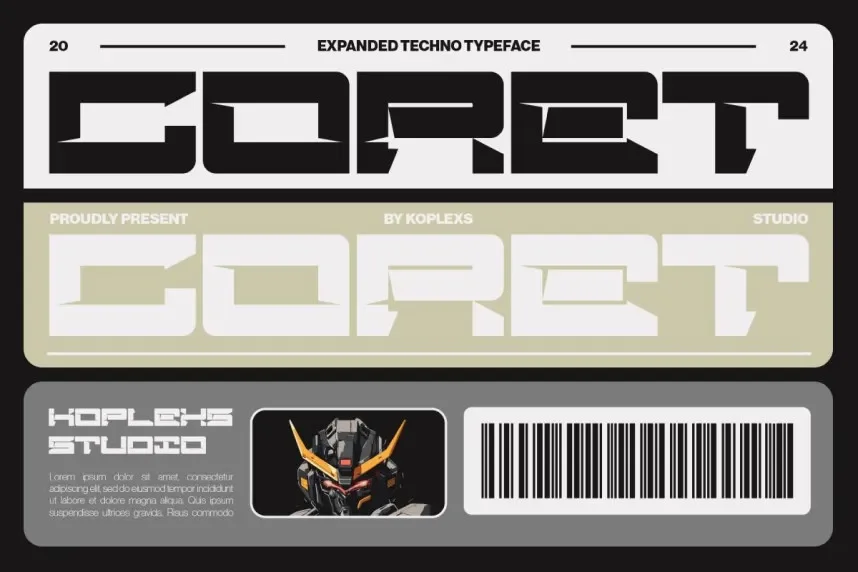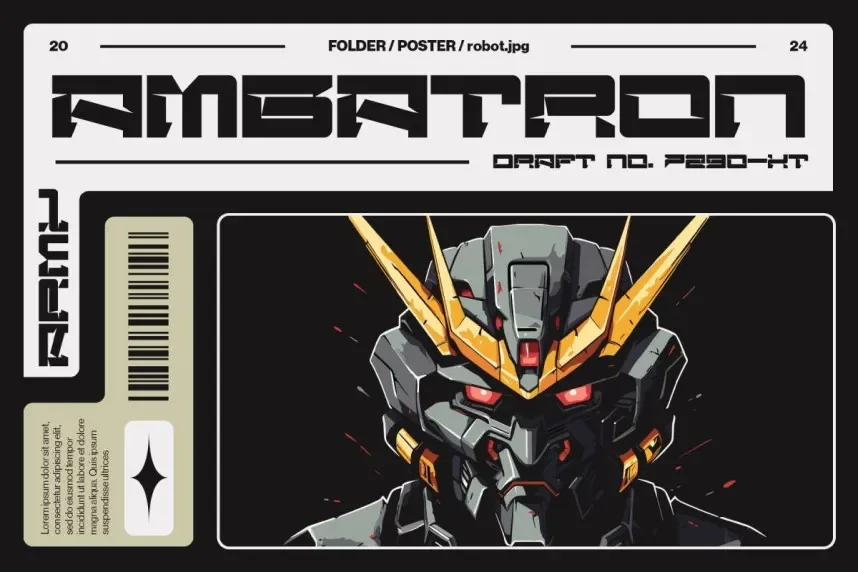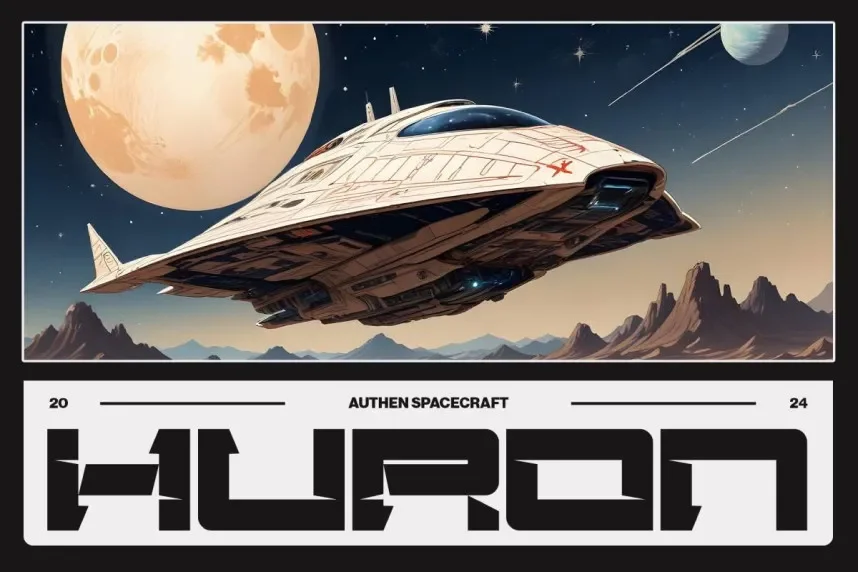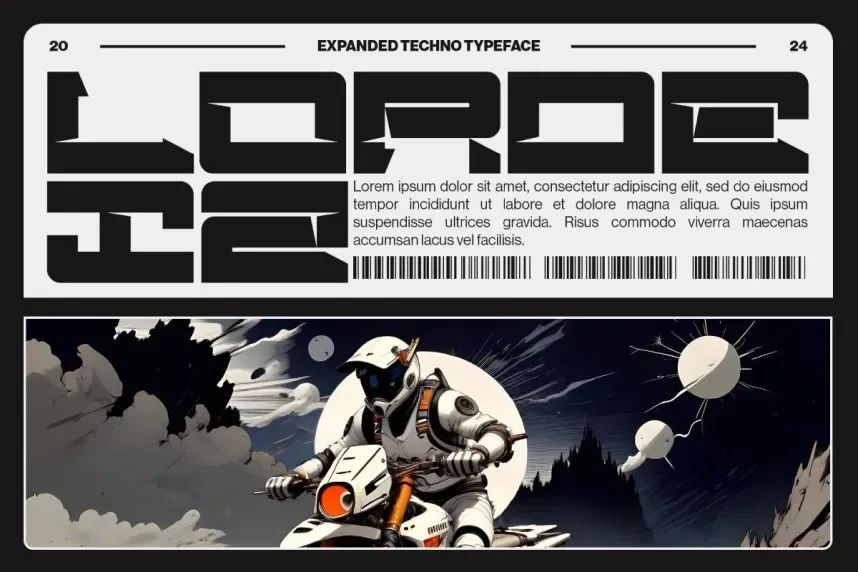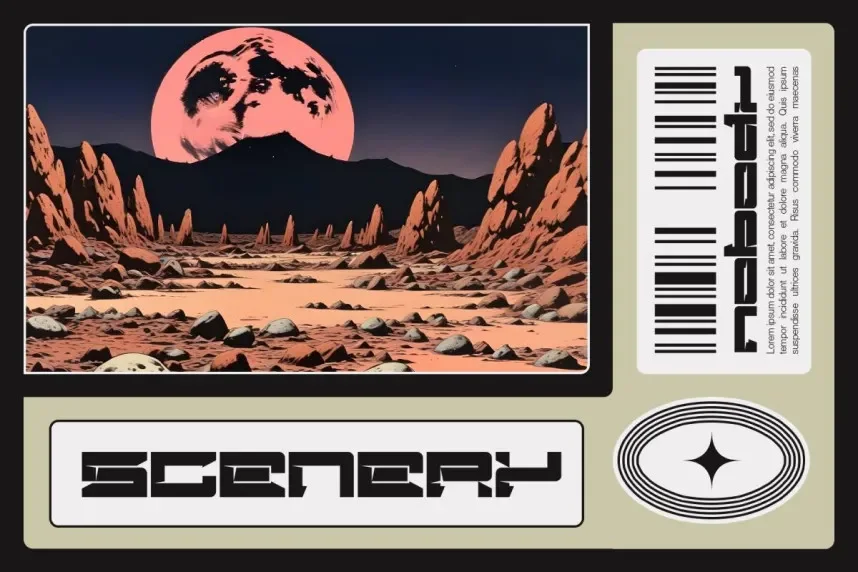
Coret Font resolves readability challenges in modern rounded typography, offering friendly shapes without losing clarity across digital or print designs.
Coret is a rounded sans-serif typeface with uniform strokes, open counters, and balanced proportions. The forms maintain legibility in UI, headings, and body text.